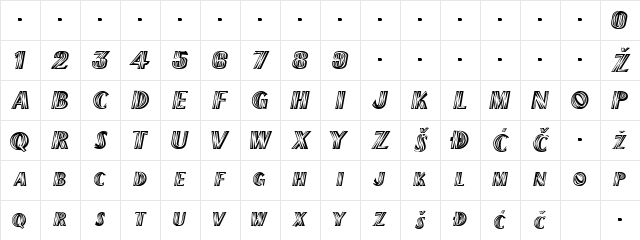
ChiliPepper Normal
Design Context for ChiliPepper
ChiliPepper is a composed and adaptable typeface that performs quietly and consistently across a wide range of design contexts.